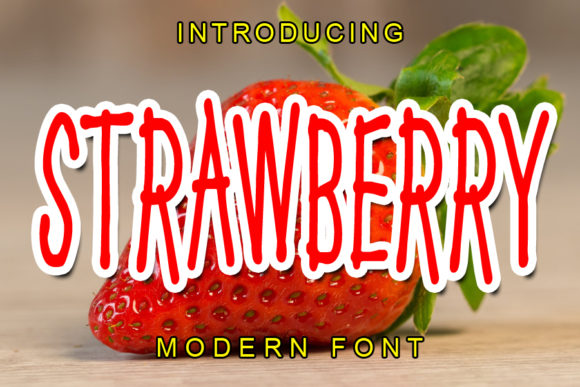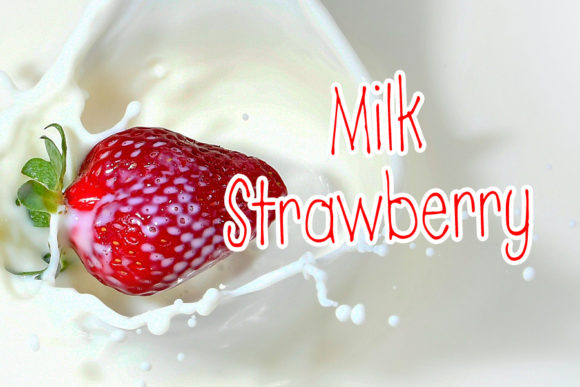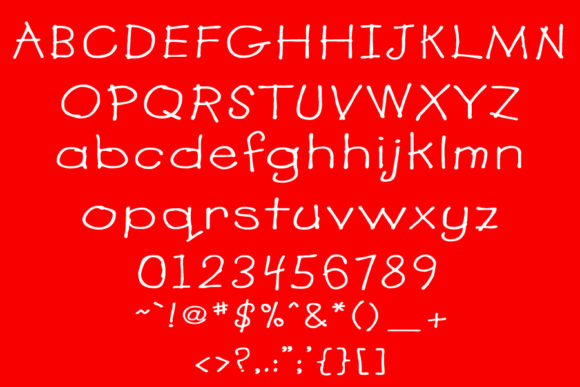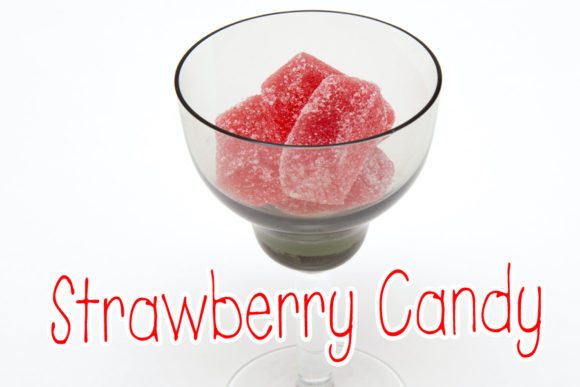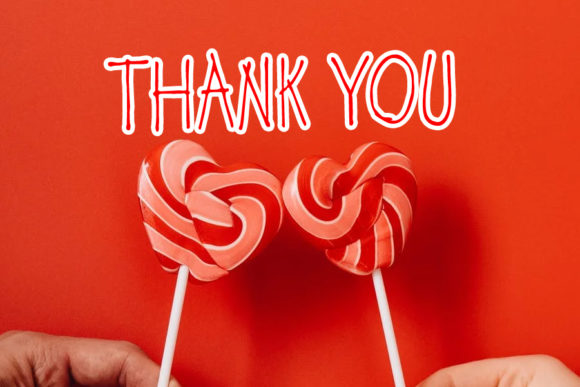
About Strawberry Font
“Strawberry” is a versatile and elegant handwritten font that offers a simple, readable, and thin lettered style. This font has a clean and refined appearance, making it suitable for a wide array of design applications. Whether you’re working on logos, headers, t-shirt designs, letterheads, signage, labels, news articles, posters, badges, or any other creative project, “Strawberry” can add a touch of sophistication and charm.
With its understated yet stylish look, “Strawberry” can effectively communicate your message while maintaining a sense of elegance. The font’s thin lettering creates a delicate and airy feel, allowing it to seamlessly integrate into various design contexts. Its readability ensures that your content remains accessible to your audience, making it a practical choice for both digital and print mediums.
The versatility of “Strawberry” extends to its potential to evoke different moods depending on how it’s used. Whether you’re aiming for a minimalist and contemporary aesthetic or a more classic and refined vibe, this font can adapt to your creative vision. Its adaptability is particularly beneficial for branding, where consistency and distinctiveness are key factors in making a lasting impression.
Moreover, “Strawberry”‘s legibility at different sizes and on various backgrounds makes it a reliable choice for a range of projects. Its thin strokes contribute to a sense of sophistication, and the handwritten quality adds a personal and human touch to your designs.
In conclusion, “Strawberry” is not only a simple and readable font but also a versatile tool that can enhance the visual appeal and effectiveness of your design projects. Its ability to convey both elegance and approachability makes it a valuable asset for designers seeking a balance between style and functionality. Whether you’re crafting a logo, designing promotional materials, or creating engaging content, “Strawberry” is a font that can elevate your work to the next level.